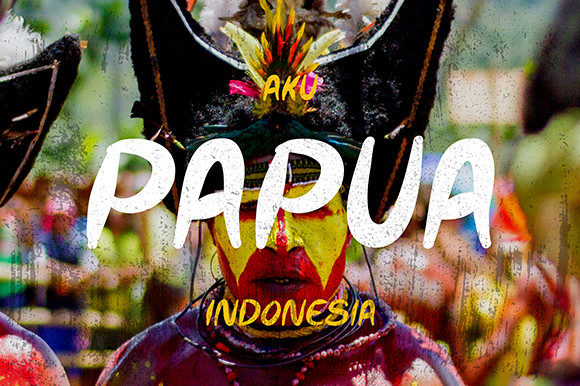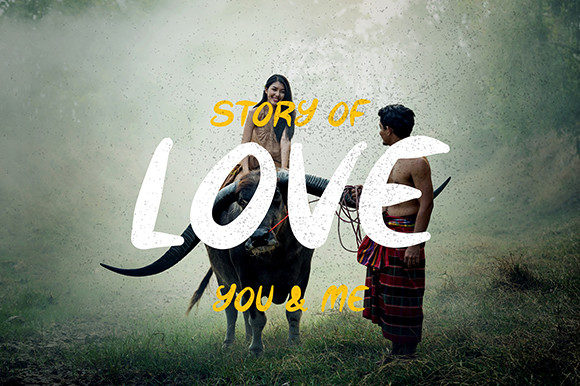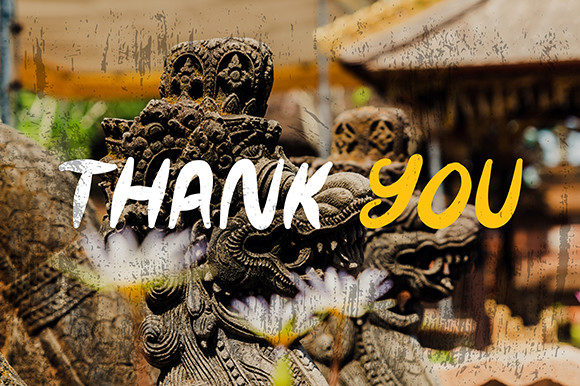
Introduction to Sahabat Font
Do you remember that moment when you finally nailed the perfect design for your client, but something was missing? The colors were right, the layout was on point, but the font just didn’t quite pop? That’s where the Sahabat Font comes in – a game-changing addition to any designer’s library.
This high-quality, free download is a design resource that will breathe new life into your creative projects. With its cool, paint-brushed display style, Sahabat Font is the perfect choice for any topic, from modern art pieces to nostalgic advertisements. Its transparent background allows for seamless integration into any design, making it a valuable asset for designers looking to elevate their work.
Key Features of Sahabat Font
- High-quality font design, ideal for creative projects and designs.
- Designed to be versatile and suitable for a wide range of design applications, from digital to print media.
Honest Review: Sahabat Font
I recently came across the Sahabat Font, a free design resource that caught my attention. As a designer, I appreciate high-quality fonts that can elevate a creative project. The Sahabat Font does just that.
- ✨ The font has a clean and modern design that is perfect for a variety of projects, from logos to website headers.
- ✨ The transparent background allows for easy customization and integration with other design elements.
However, I did encounter some limitations with the Sahabat Font:
- ⚠️ The font is not as versatile as some other high-quality fonts on the market, with limited weights and styles available.
- ⚠️ The font may not be suitable for projects that require a more traditional or classic look.
Overall, I’m impressed with the Sahabat Font. While it may have some limitations, it’s a great resource for designers who are looking for a modern and clean font to elevate their creative projects. With a free download and transparent background, it’s a great addition to any design toolbox.
Tips for Getting the Most Out of Sahabat Font
To get the most out of Sahabat Font, experiment with different font sizes and styles. You can also combine Sahabat Font with other design elements to create unique and eye-catching designs.
Sahabat Font is ideal for a variety of creative projects, including graphic design, branding, and digital art. Its high quality and transparent background make it a versatile design resource that can be used in a range of applications.